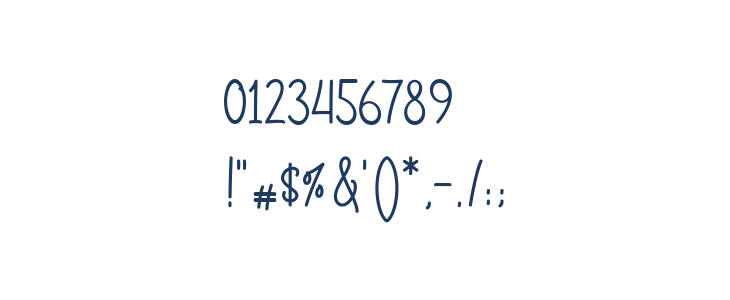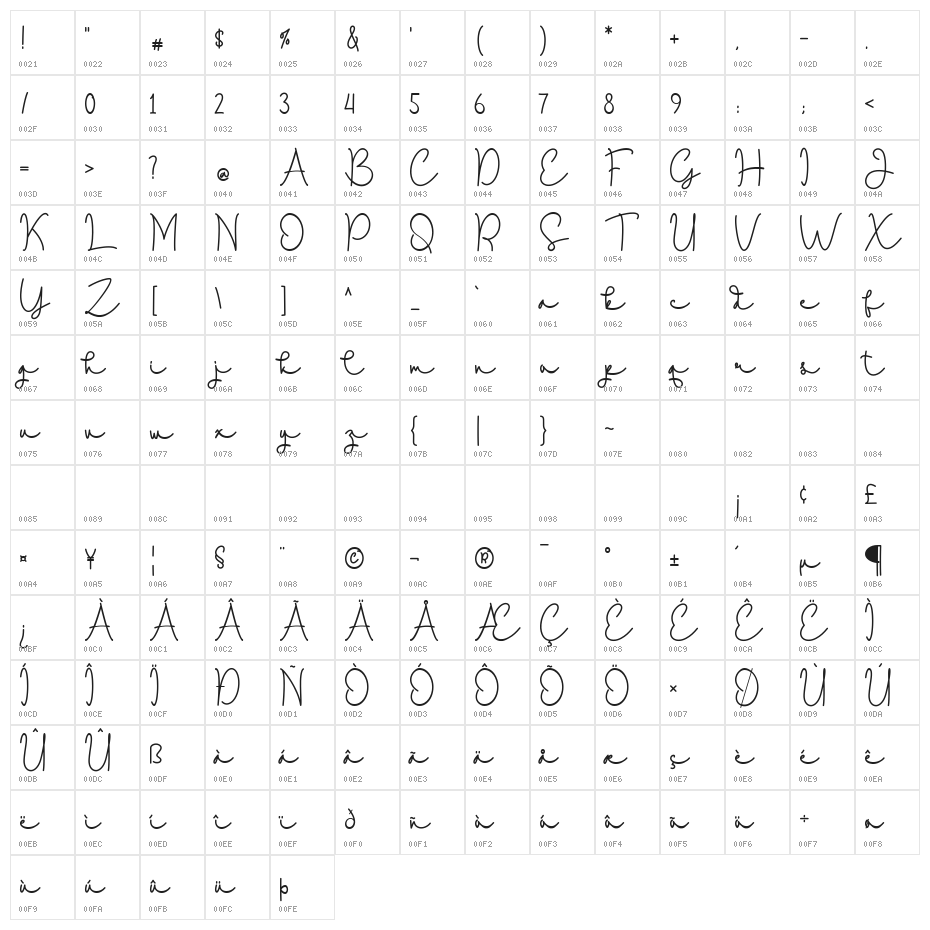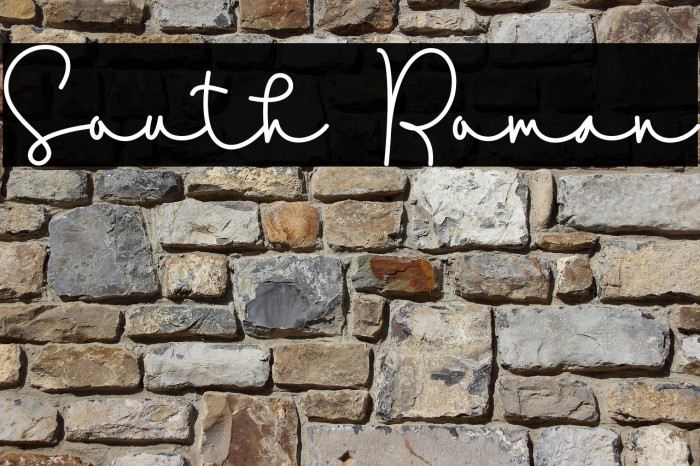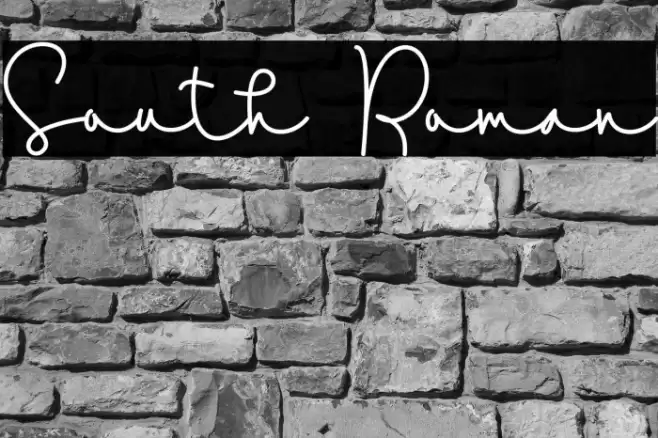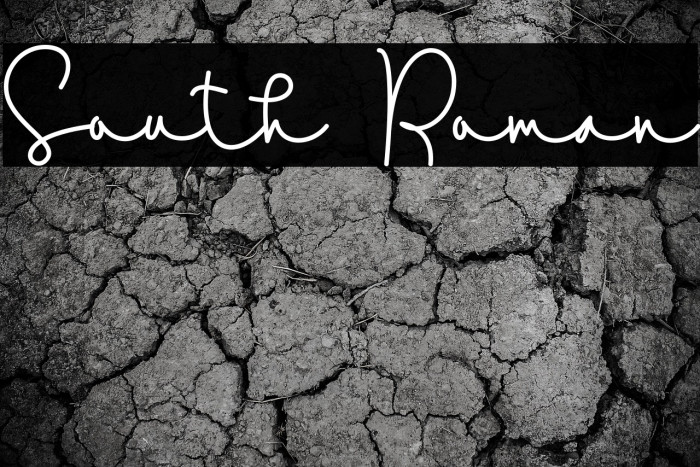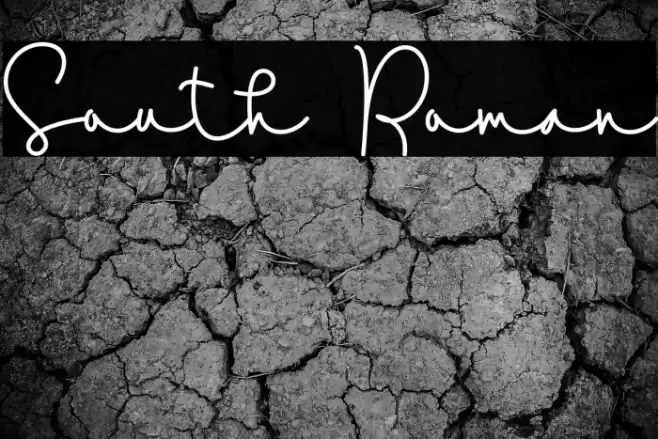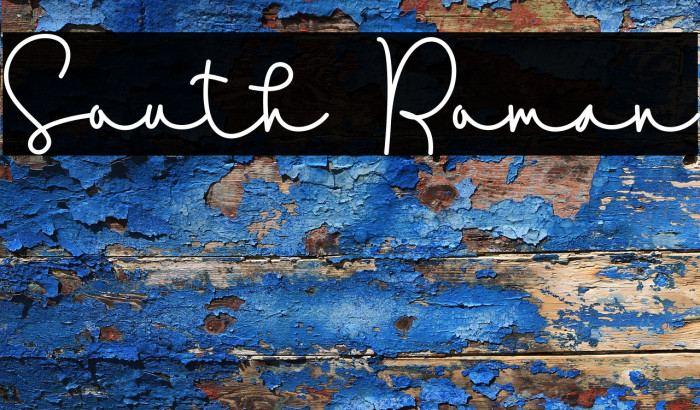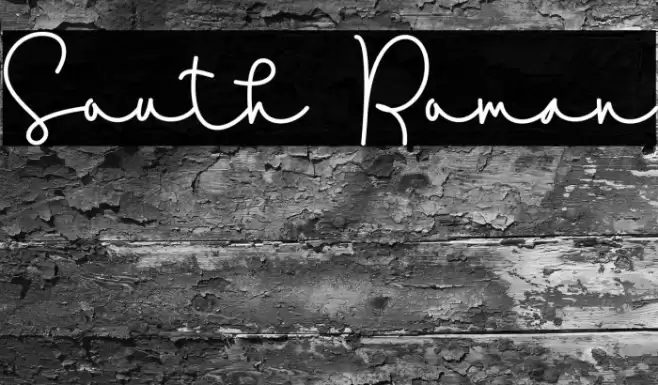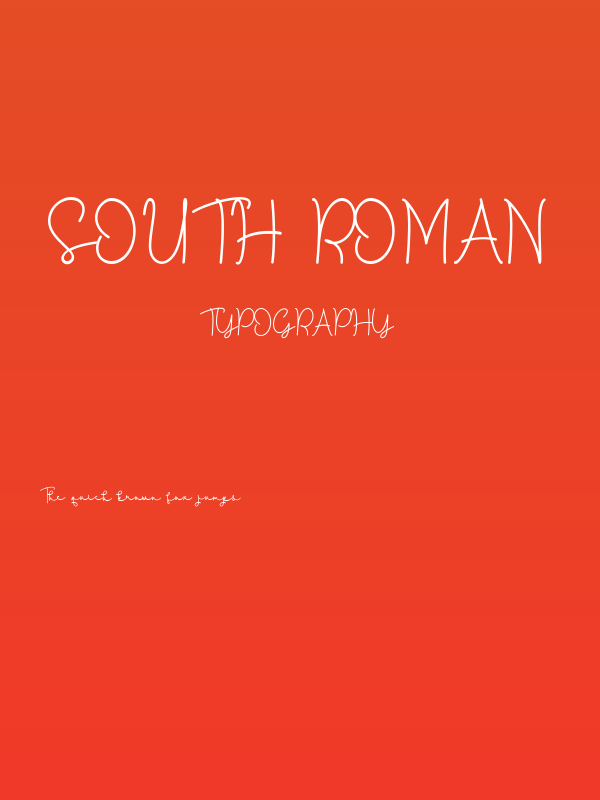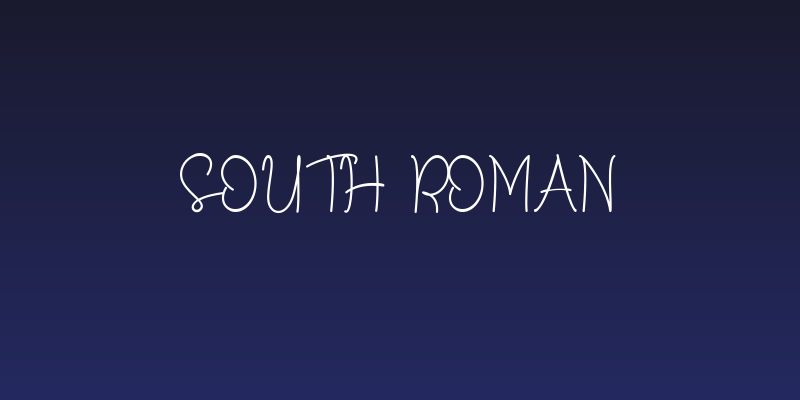
South Roman Font
South Roman Description
This font features a playful and whimsical script style, characterized by its flowing, interconnected letters. The uppercase letters maintain a consistent height, while the lowercase letters exhibit a charming looped design, adding a touch of elegance and creativity. The numerals are clear and easy to read, complementing the overall style of the font. Special characters are thoughtfully designed to match the playful aesthetic, making this font suitable for a variety of creative projects. The strokes are consistent in width, providing a balanced and harmonious appearance.